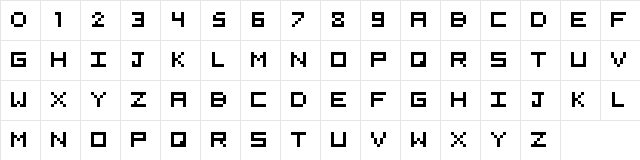
5x5 Pixel Regular Free Font
5x5 Pixel Regular
Designer: Negociator
Design Context for 5x5 Pixel
5x5 Pixel is rooted in pixel-grid construction, making it a natural fit for game UI, retro computing aesthetics, and digital nostalgia projects.
Pro Tip: Use 5x5 Pixel at sizes that align with its pixel grid for the sharpest rendering - scaling to non-integer multiples can introduce unwanted blur.